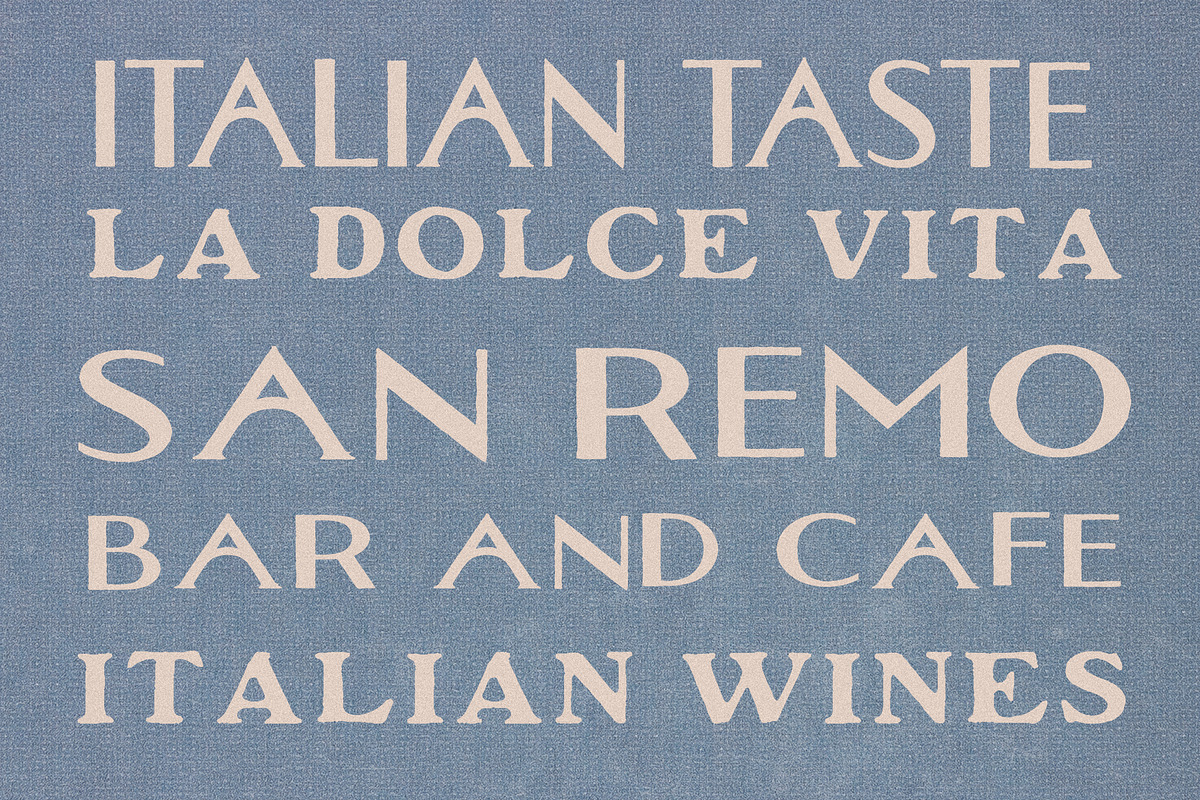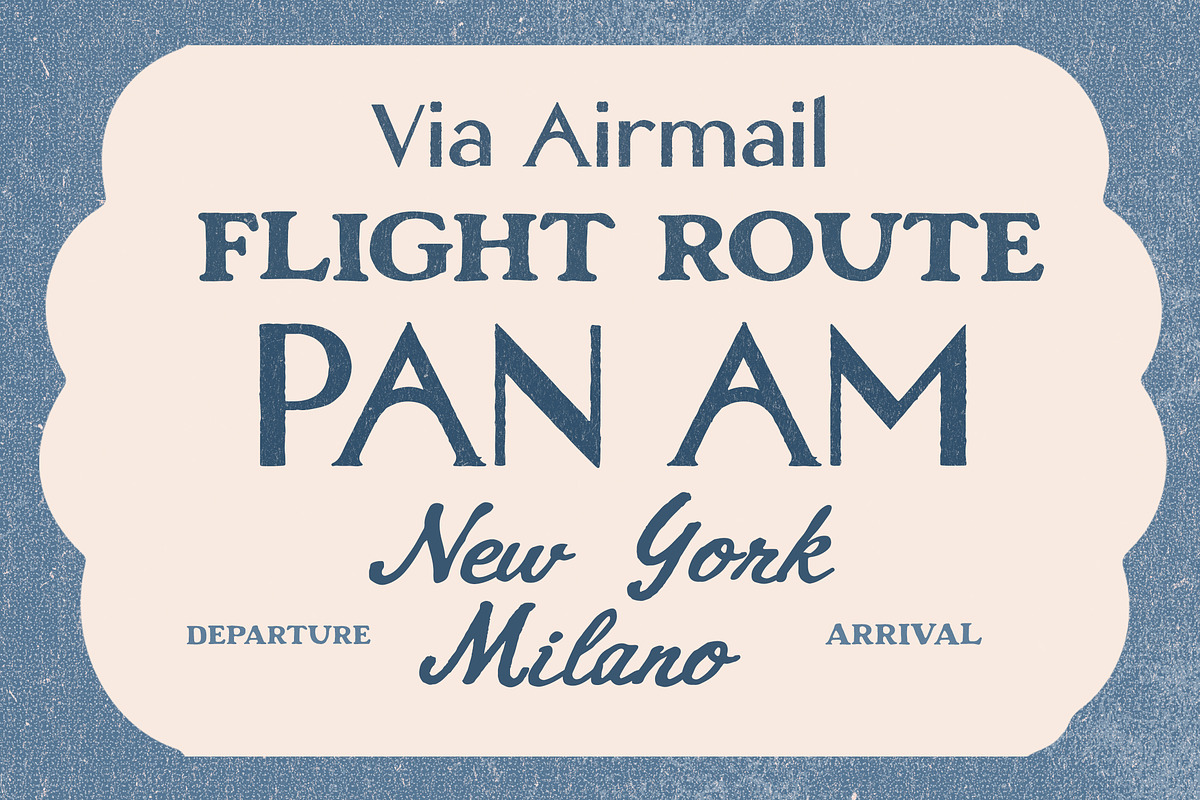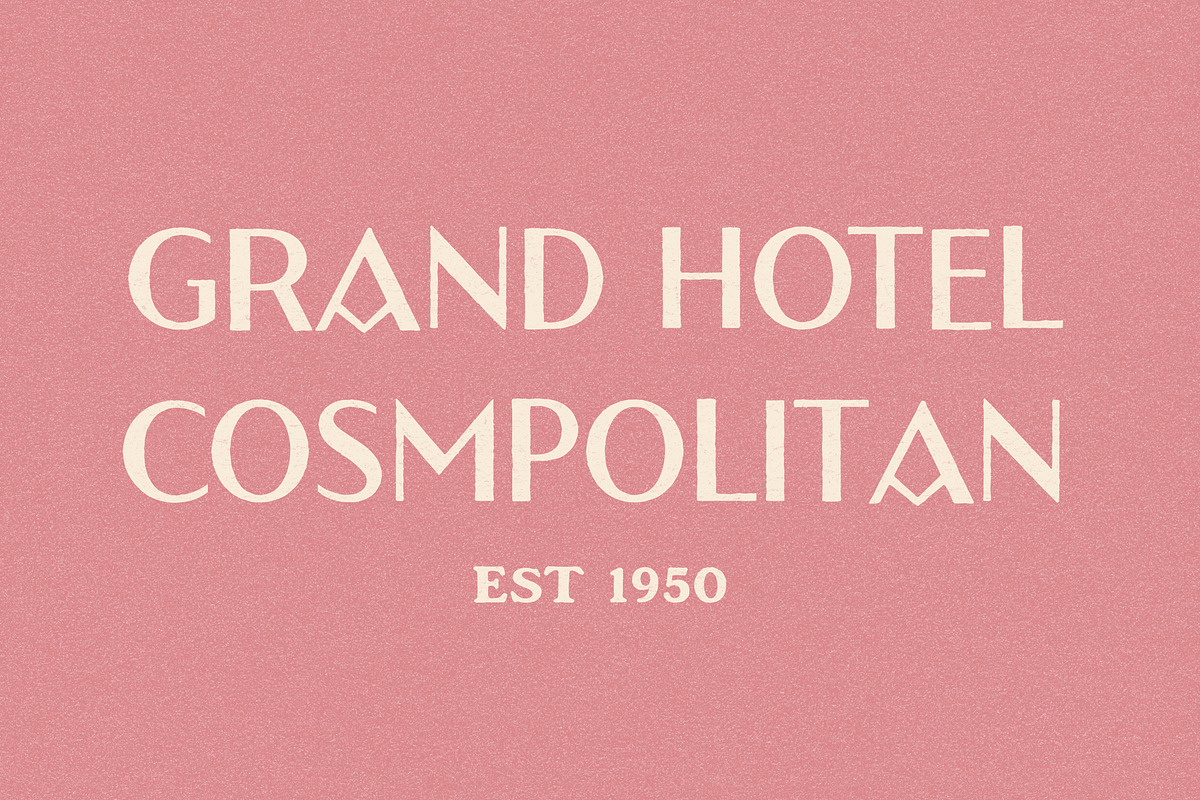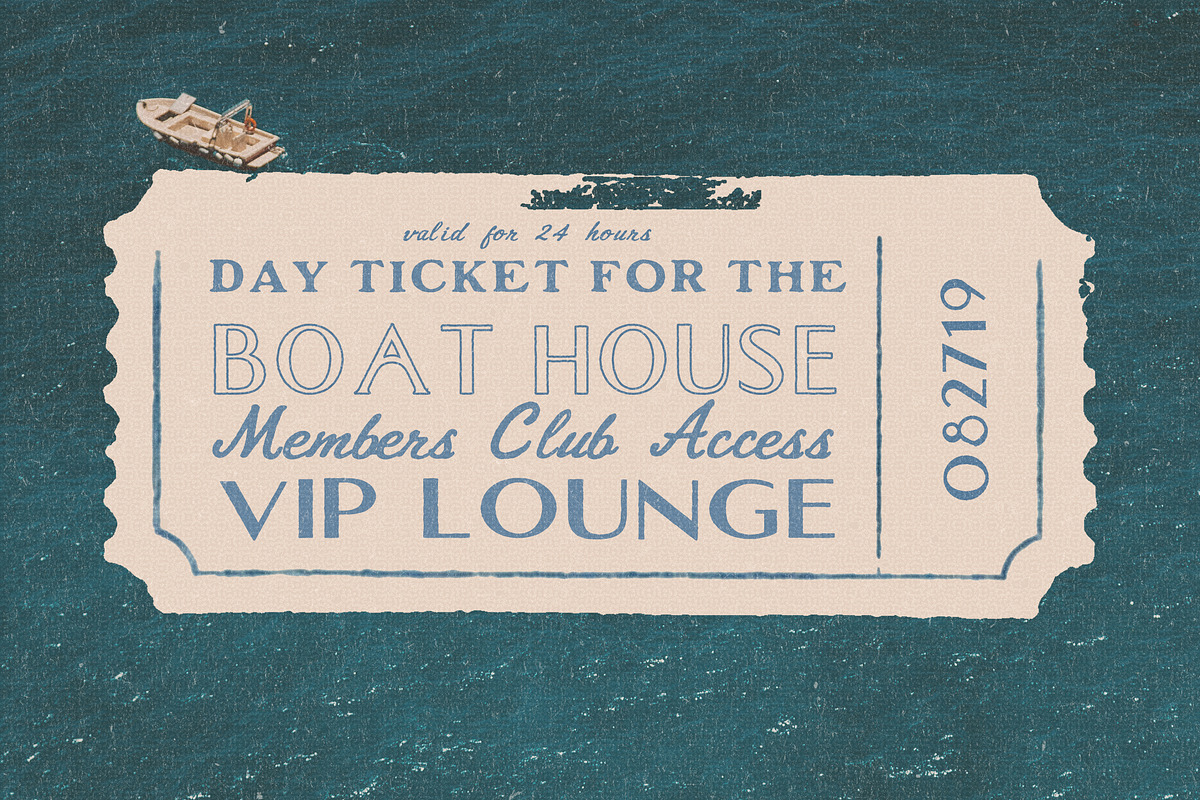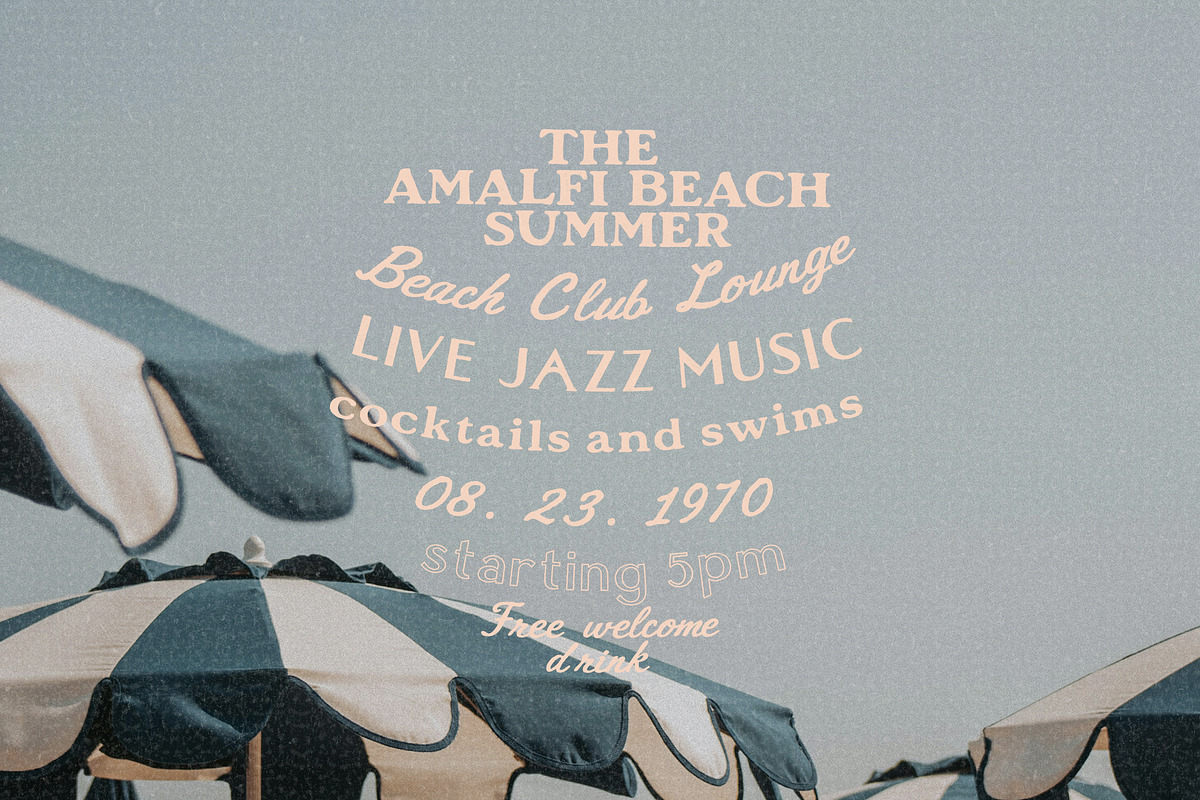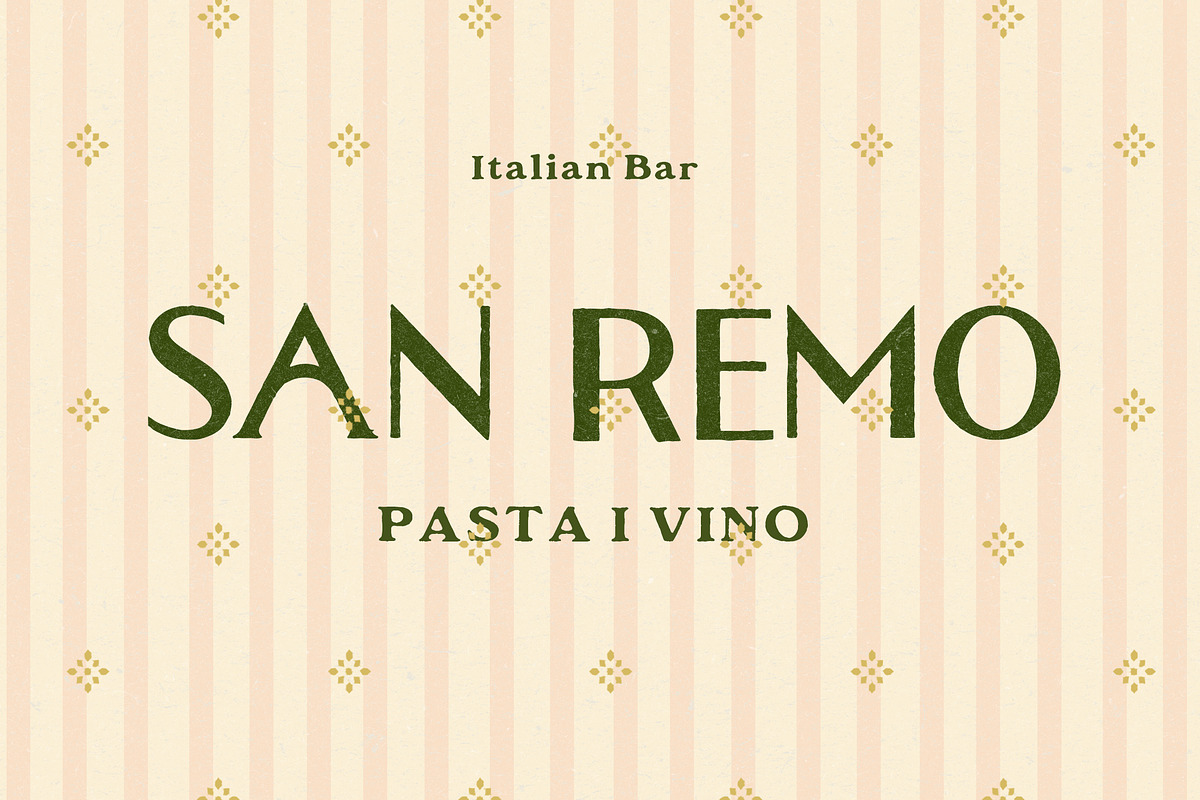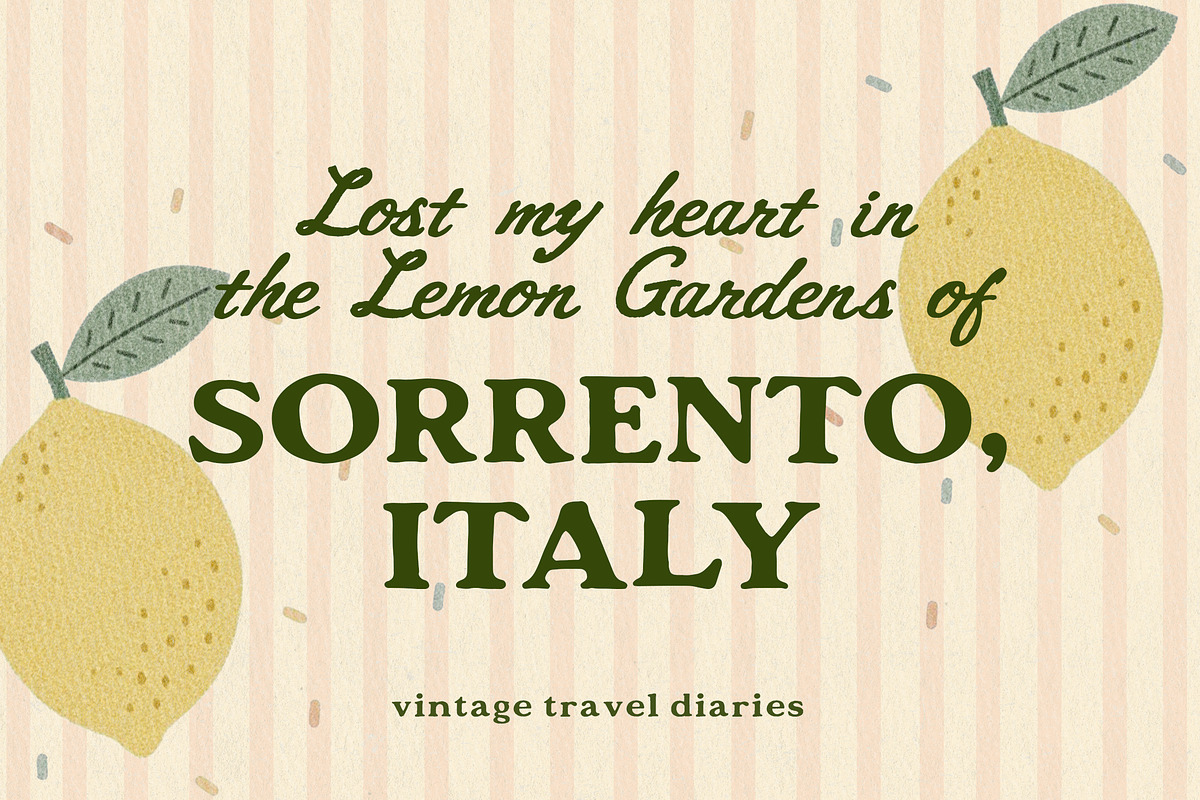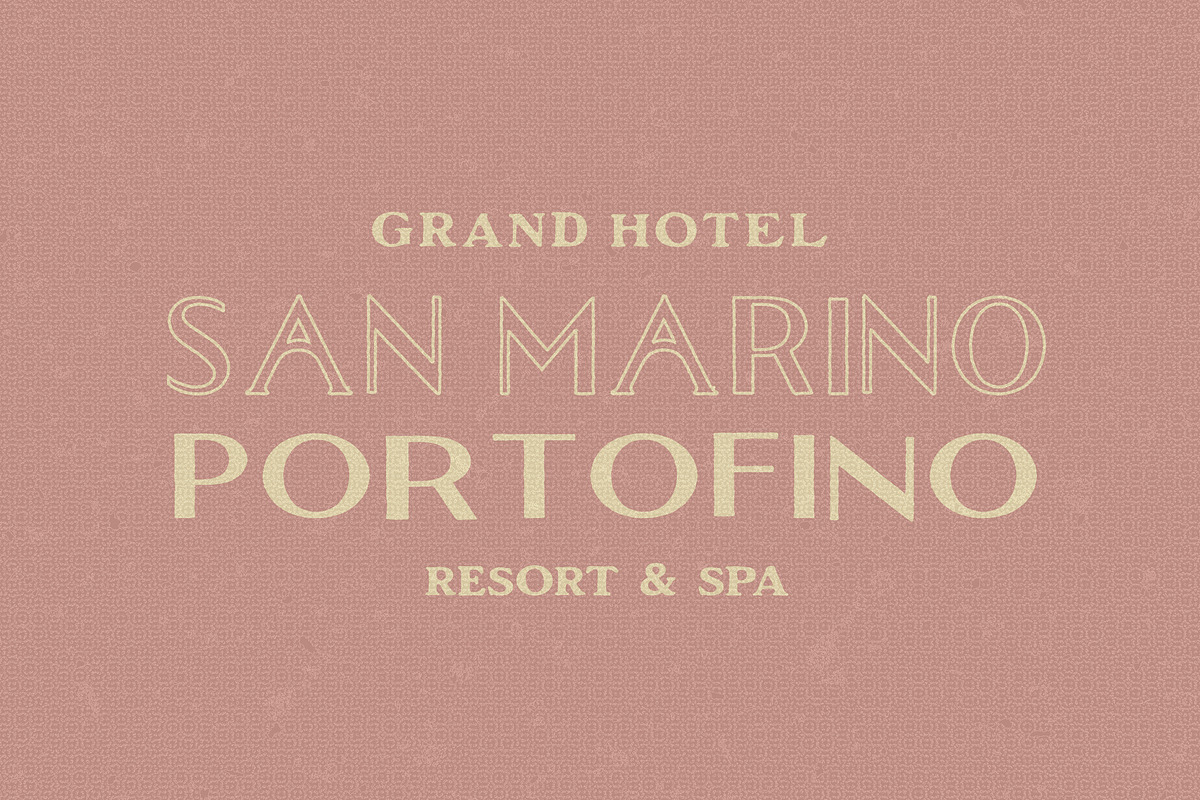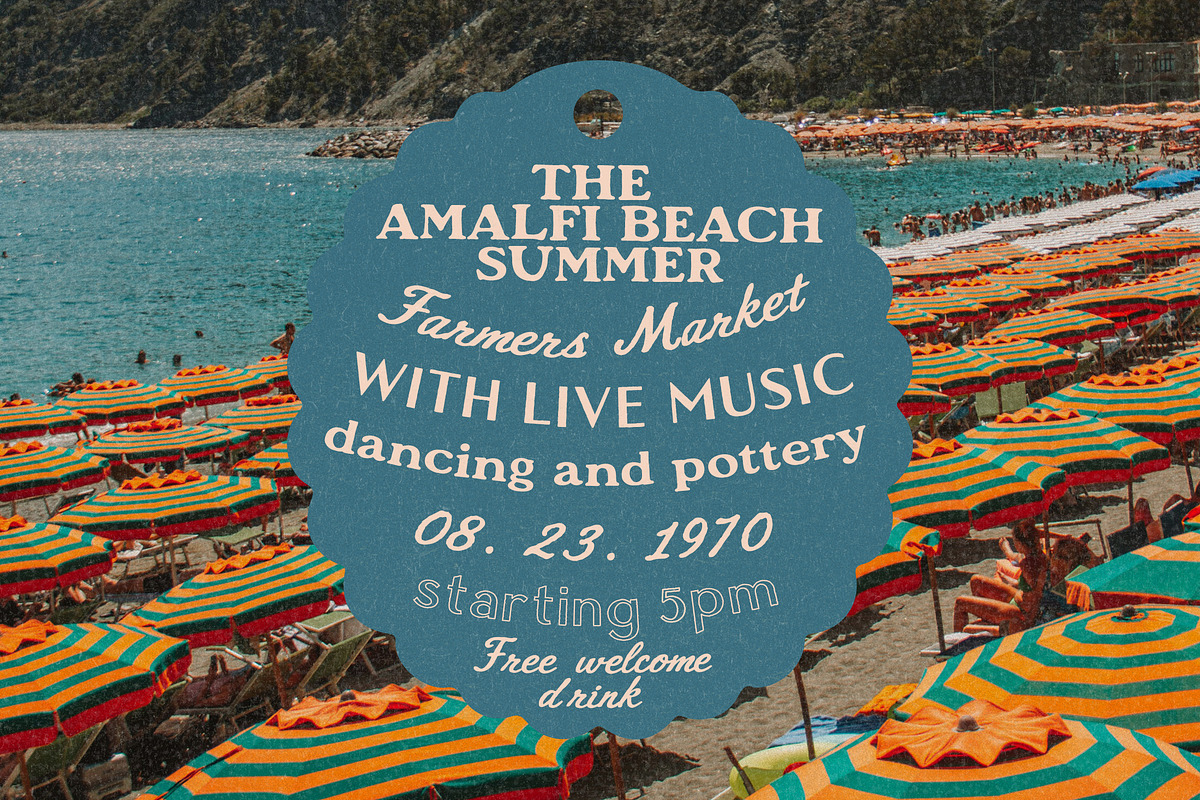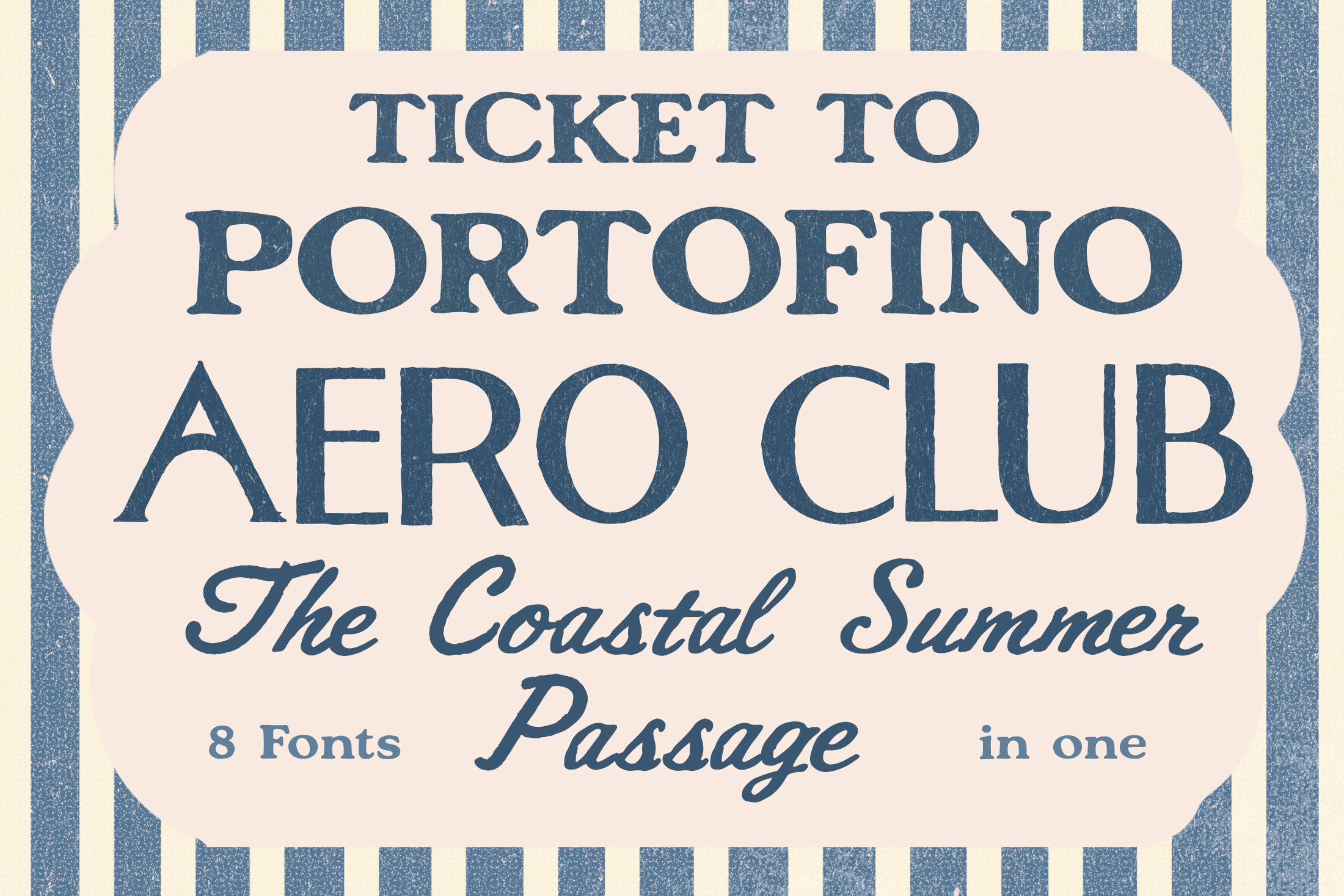
Vintage Handwritten Retro Font Trio
Ticket to Portofino & Aero Club is a vintage-inspired font family with a nostalgic Italian travel feel, designed for branding, packaging, logos, posters, weddings and editorial design. Inspired by old airmail tickets, coastal summer routes, retro airline graphics, and sun-faded travel documents, this font trio brings a warm, elegant, and timeless look to your projects.
The family includes 3 beautifully paired fonts with 8 styles in total, giving you plenty of flexibility to create layered typography, retro logos, ticket-style layouts, travel-inspired designs, and elevated vintage branding.